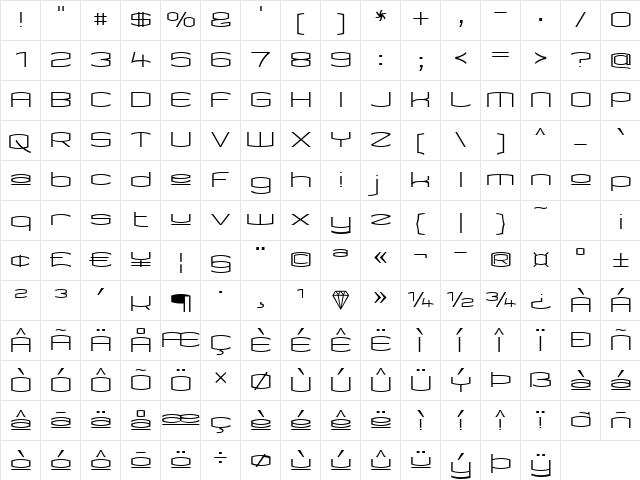
Kameleon Upper Regular
Design Context for Kameleon Upper Typeface
Kameleon Upper takes a measured approach to typography — its balanced proportions and neutral character make it a reliable workhorse for both digital and print work.